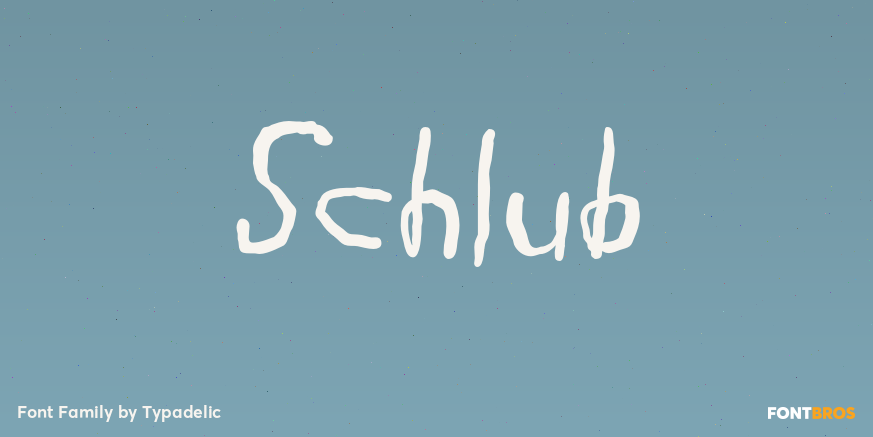
HomeFont BrosDistressedSchlub DistressedHandwrittenWacky Schlub FacebookXPinterestWhatsApp 1 of 1 About Schlub Schlub is just plain weird. It looks like it was drawn with the left hand of a right-handed person using a gloppy pen yet remains very legible.  DOWNLOAD ON FONT BROSThis font is sold and delivered by Font Bros. Font Canyon may earn a commission if you buy through this link. People also explored Summer Fantasy Font Hello Gorgeous Font Warm Hug Font Allentown Font Gastro Intestinal Confluent Font Vintage Flowers Duo | Poster Mockups Doodle Gnomes Font Morning Brew Font John Tone Font 294 0 TagsSchlubSchlub Font Previous articleReliantNext articleBowdon LEAVE A REPLY Cancel reply Comment: Please enter your comment! Name:* Please enter your name here Email:* You have entered an incorrect email address! Please enter your email address here Website: Save my name, email, and website in this browser for the next time I comment. Personal Use Free Wadjet Personal Use Free Read more about this font DoooLA Personal Use Free Read more about this font Cintya Personal Use Free Read more about this font Qiwqiw Personal Use Free Read more about this font BLOG Fonts That Capture the Spirit of New York City New York City is more than just a place—it’s an experience, a rhythm, a visual language... Exploring Font Trends Free Fonts Risk: Why Free Fonts Can Be Dangerous for Designers Top 10 Handwritten Fonts That Elevate Your Designs